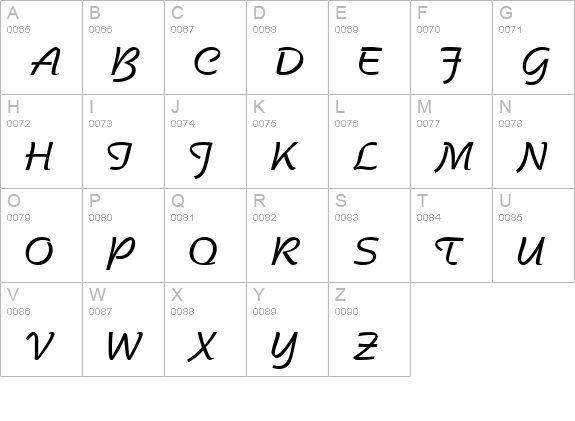
RossonSSK font is a modern and stylish typeface that exudes elegance and sophistication. Its sleek lines and contemporary design make it perfect for a wide range of creative projects, from branding to advertising to social media graphics. The font features a clean and legible look that ensures readability across various platforms and mediums. What makes RossonSSK font even more appealing is that it is available for free download at FontsMarket.com. This means you can easily access this high-quality font without any cost, making it a valuable addition to your font library. Whether you're a designer, a blogger, or simply someone looking to enhance their visual content, RossonSSK font offers versatility and style that will elevate your projects to the next level. Download this free font today and unlock endless possibilities for your creative endeavors.